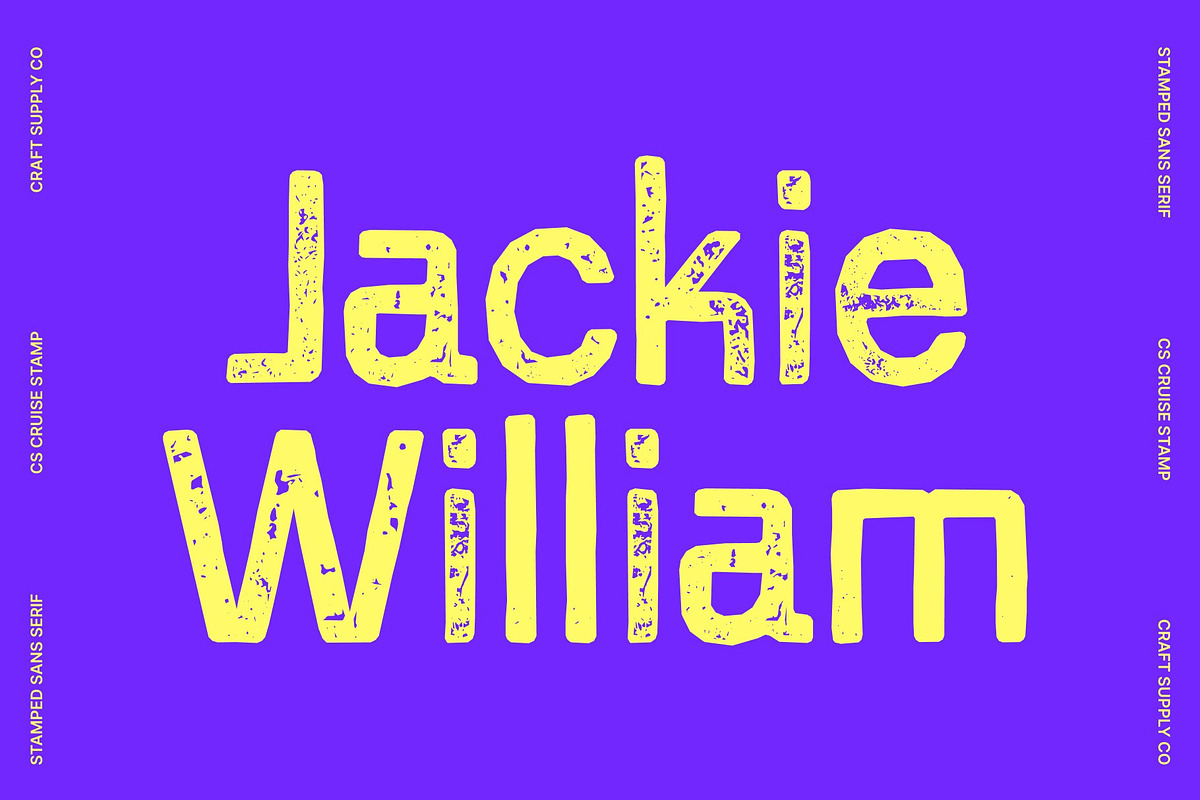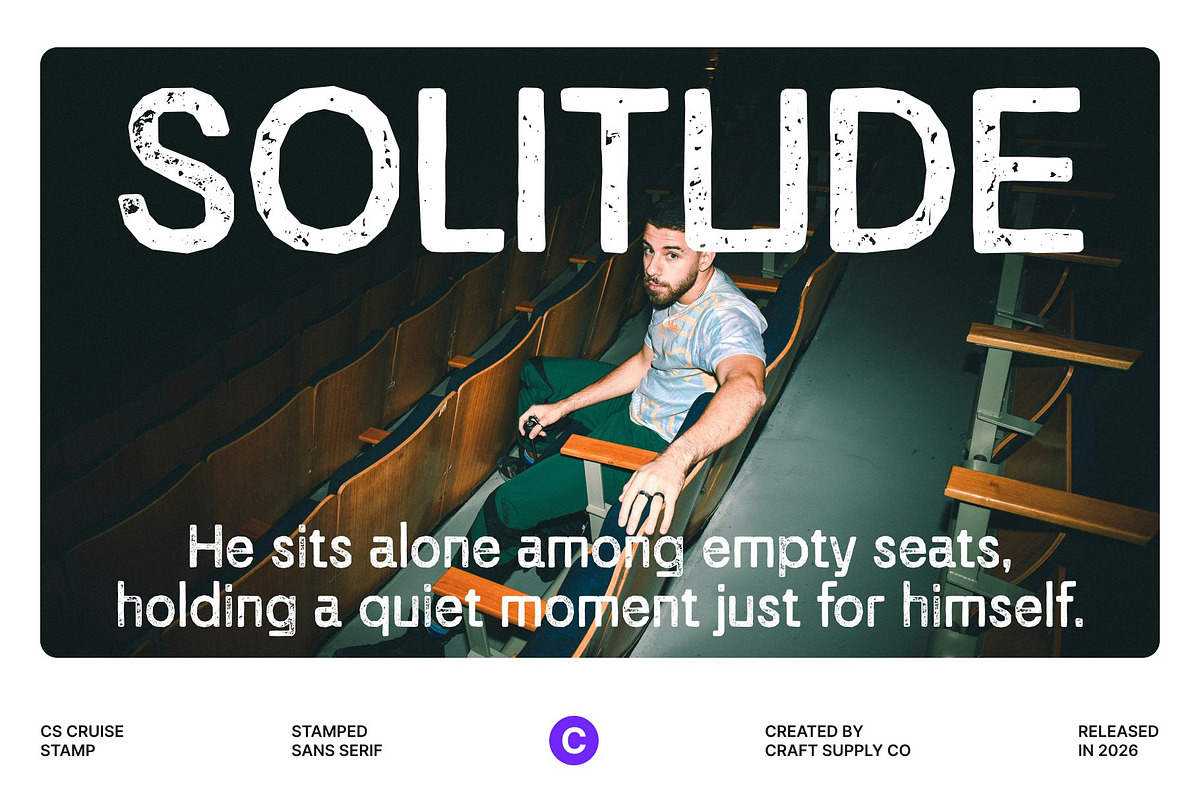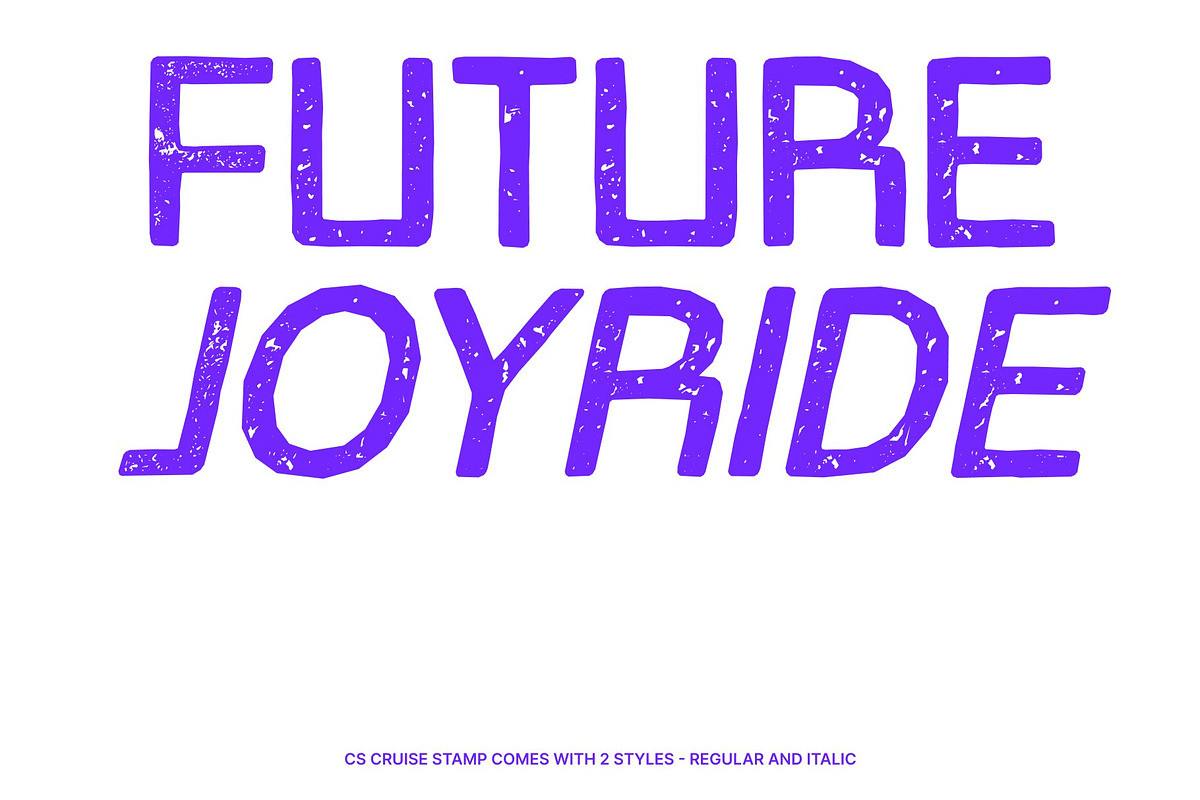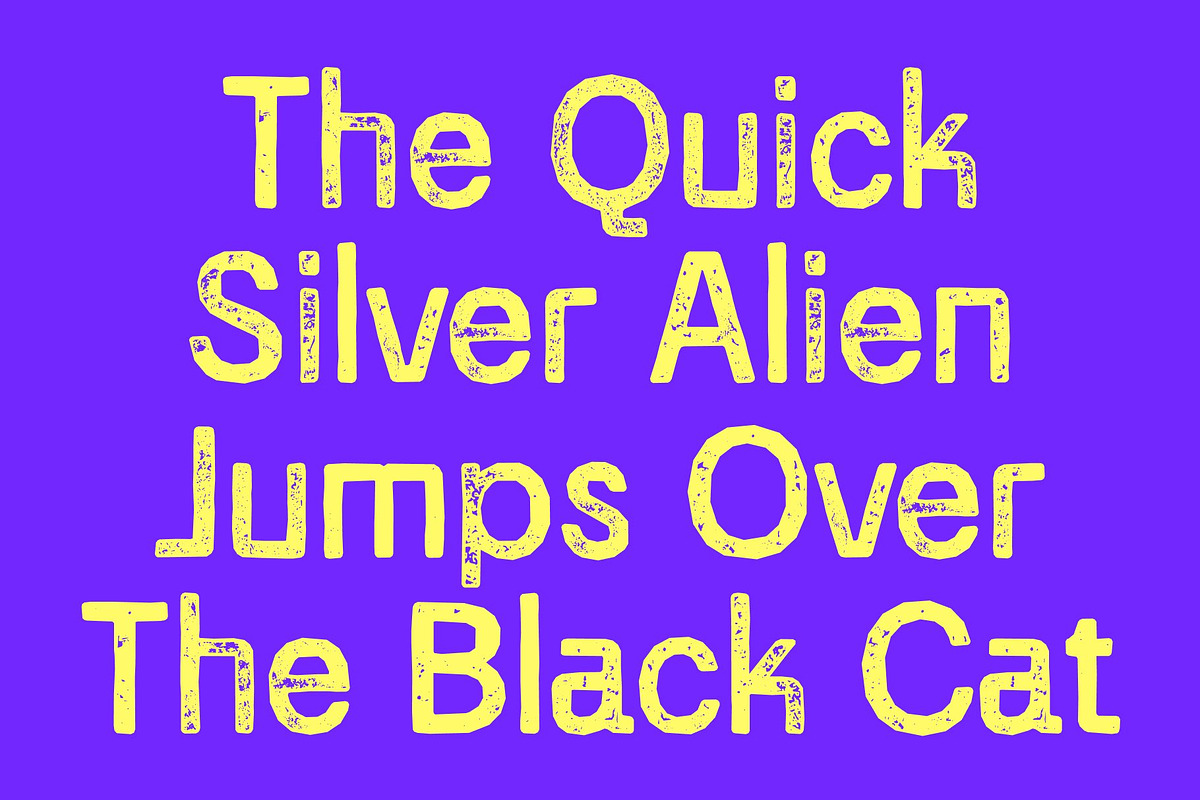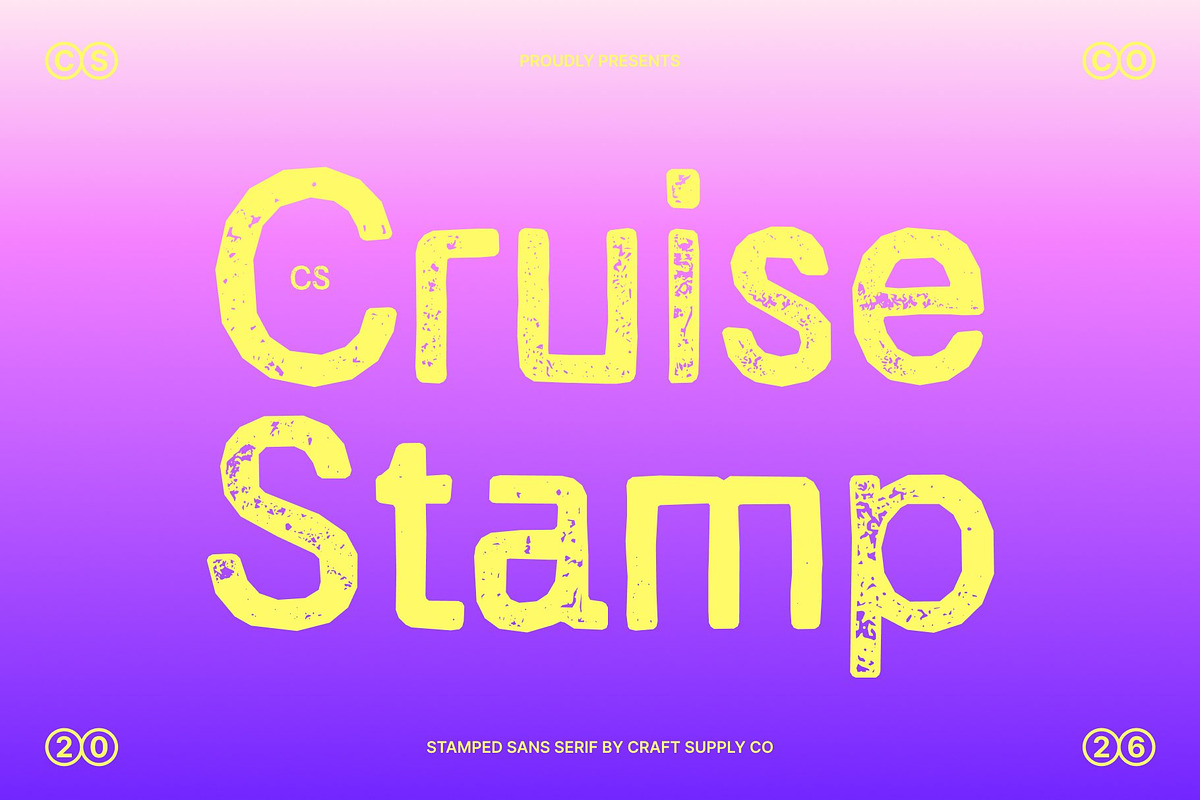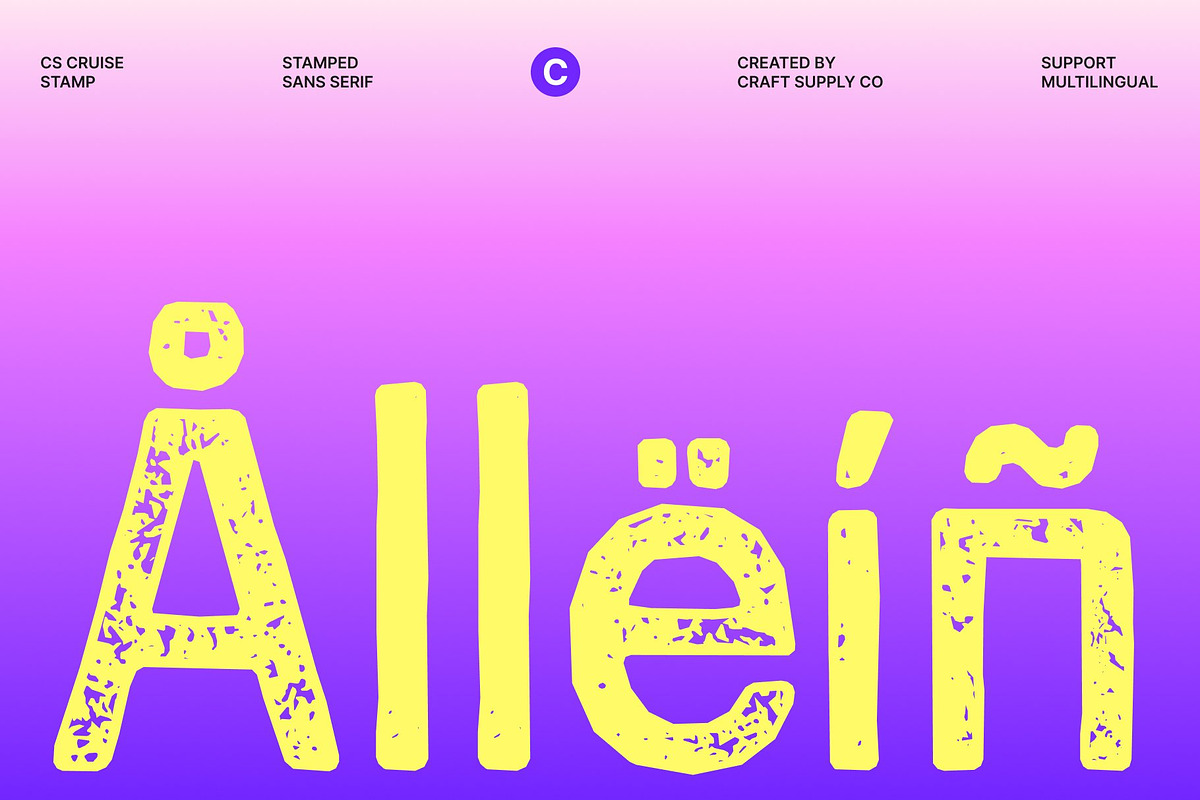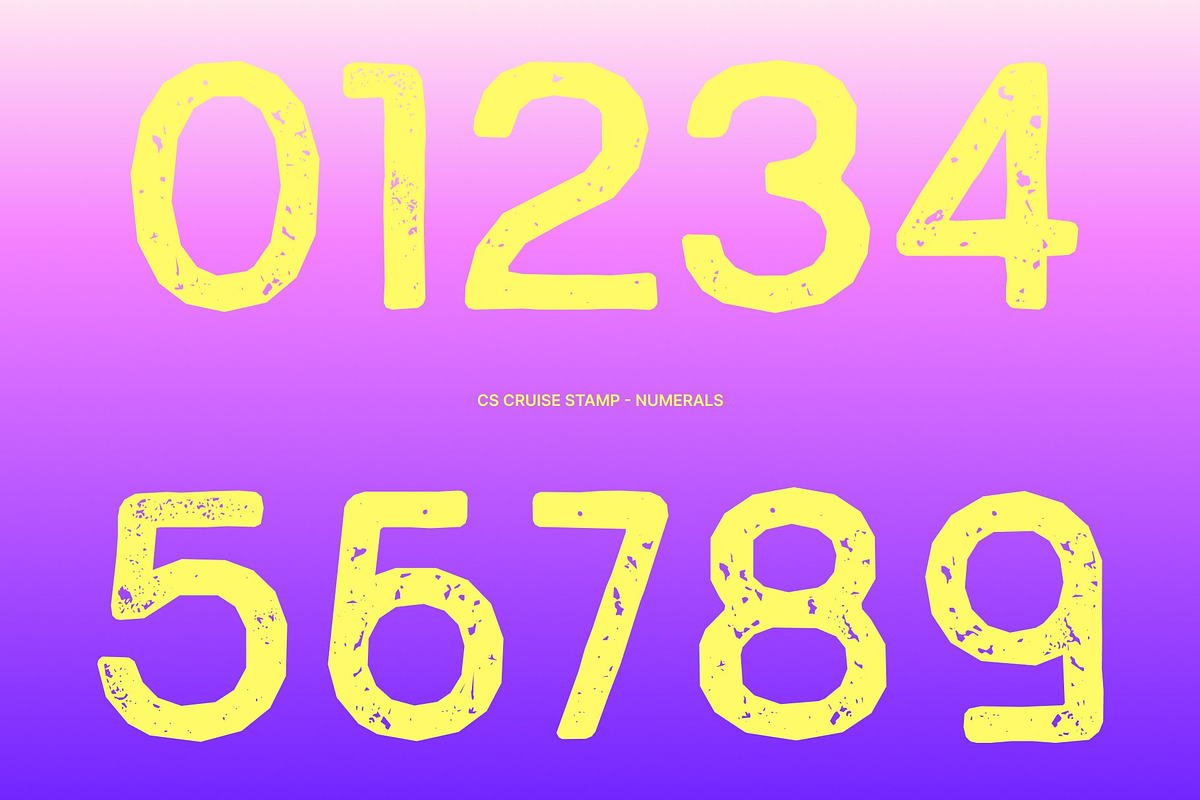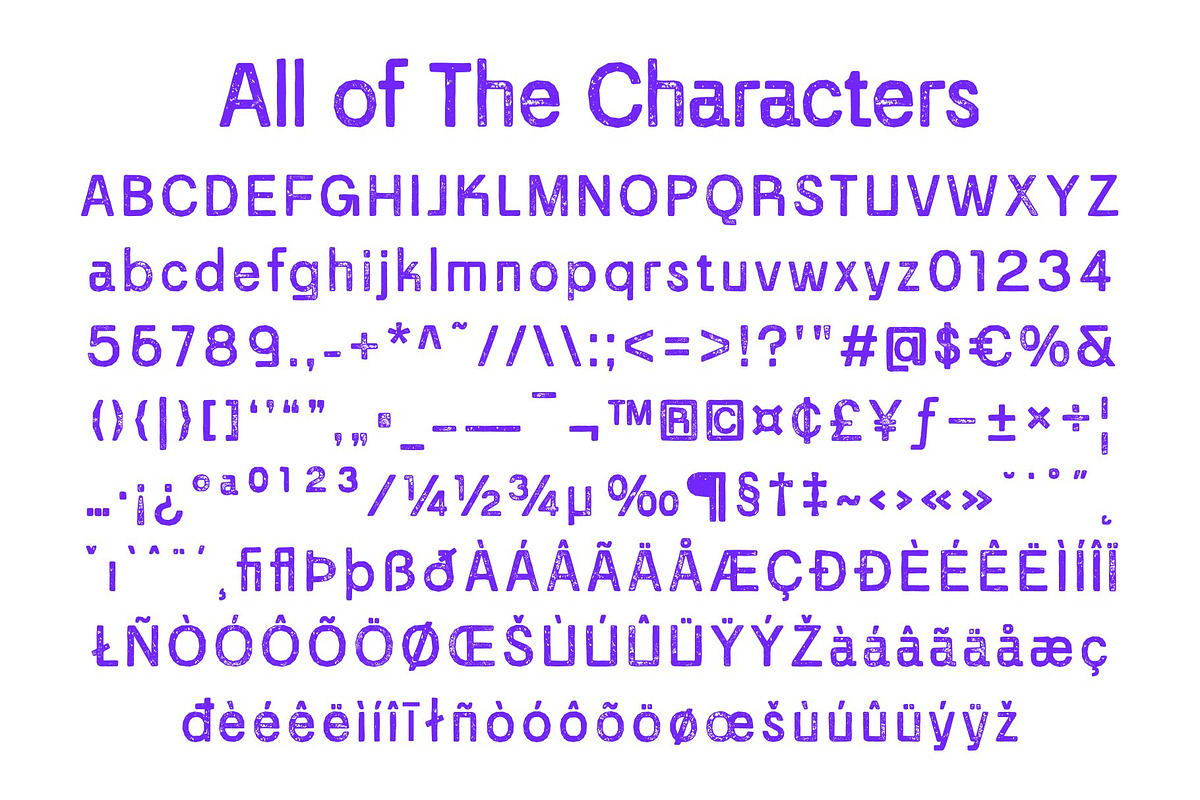
CS Cruise Stamp
CS Cruise Stamp – Modern Font: Navigate Your Designs with Contemporary Elegance
Clean Modern Sans-Serif with a Vintage Touch This is a modern sans-serif font that blends contemporary minimalism with a subtle stamped texture. Its clean lines and simple structure deliver a fresh, stylish appearance, while the stamp effect introduces a hint of vintage character and artistic depth, creating a unique balance between modern clarity and classic charm.
Contemporary and Minimalist Design Built on a sleek sans-serif foundation, this font offers a crisp and uncluttered look that aligns perfectly with current design trends. The understated stamp texture adds warmth and personality without sacrificing readability, making the font feel both professional and expressive.
Perfect for Modern and Versatile Projects From branding and websites to advertising and editorial layouts, this font adapts seamlessly across digital and print media. Its refined simplicity ensures your message remains clear while the textured finish adds visual interest and character.
Enhance Your Designs with Confident Simplicity Whether creating a modern corporate identity or a stylish promotional campaign, this font helps your designs stand out with contemporary elegance. The combination of minimalist structure and vintage-inspired texture makes it a versatile and memorable choice for a wide range of creative applications.
CS Cruise Stamp Regular
CS Cruise Stamp Italic